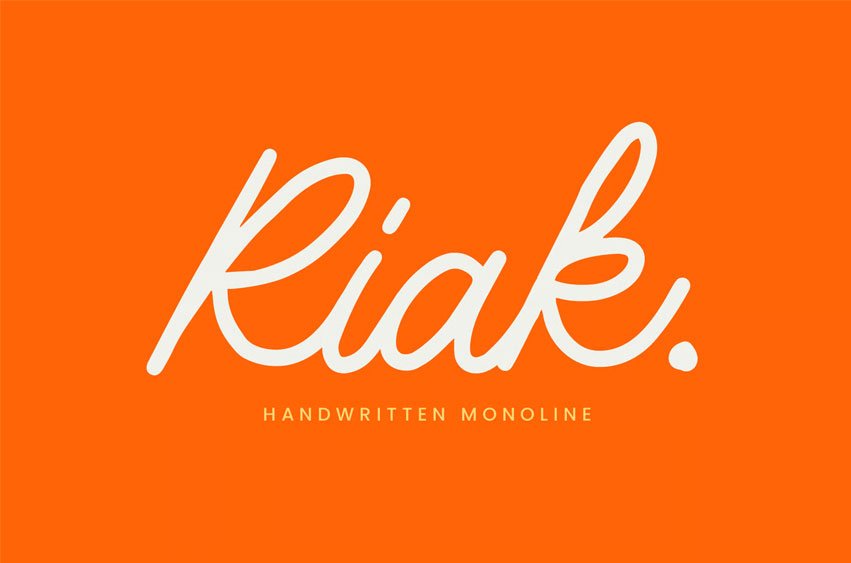
Riak Font is a smooth and stylish handwritten monoline font that brings a personal, elegant touch to your creative work. With its fluid curves and consistent stroke weight, Riak captures the charm of natural handwriting while maintaining a clean, professional look, perfect for a fun, informal, and eye-catching aesthetic, and social media graphics.
Designed to be both expressive and versatile, Riak comes with a full set of uppercase and lowercase letters, numerals, and punctuation. Whether you’re working on a minimalist brand identity or a heartfelt message, this font adapts beautifully to both print and digital projects.
Add a sense of warmth and sophistication to your design with Riak—a font that blends the simplicity of monoline structure with the soul of hand-drawn script.
- Smooth monoline stroke
- Uppercase & lowercase letters
- Numbers (0–9)
- Basic punctuation